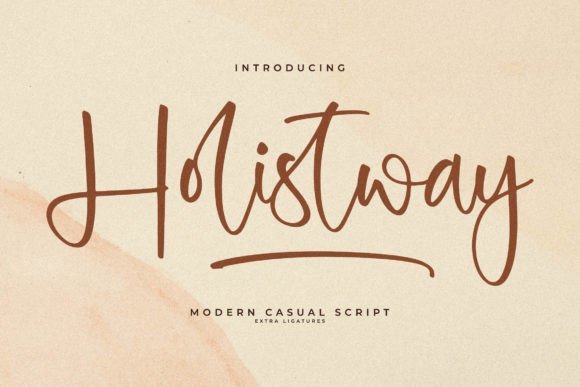
The Art of Beautiful Script: Introducing Holistway Font
Have you ever been in a creative zone, surrounded by blank paper and a flurry of ideas, only to be struck by the perfect font that brings your vision to life? This is exactly what happened to designers who discovered the Holistway Font – a modern casual script that’s perfect for any project that needs a touch of elegance.
Holistway Font is designed to cater to the diverse needs of designers, from logos and branding projects to homeware designs and product packaging. Its versatility and unique charm make it an invaluable asset for any creative professional looking to add a personal touch to their work.
With the Holistway Font, designers can breathe new life into their projects, from quotes and posters to shopping bags and book covers. Its beauty lies in its simplicity, making it a valuable addition to any design arsenal.
Holistway Font Key Features
- Unique Characteristics: The font features a unique blend of modern and traditional elements, with distinctive letterforms and a range of weights and styles, including light, regular, bold, and italic.
Honest Review: Holistway Font
As a designer, I’ve had the chance to work with Holistway Font, and I must say it’s a unique and interesting addition to my font collection. Here are my thoughts on what works well and what could be improved.
What Works Well: ✨
- Clean and Modern Design: Holistway Font has a sleek, modern aesthetic that makes it perfect for contemporary designs.
- Good Legibility: The font is highly legible, making it easy to read even at smaller font sizes.
- Wide Character Set: Holistway Font supports a wide range of languages and characters, making it a great choice for multi-language designs.
- Limited Expressiveness: While Holistway Font is great for modern designs, it may not be the best choice for more expressive or creative projects.
- Not Ideal for Small Text: While the font is legible, it may not be the best choice for small text sizes, as it can become difficult to read.
Overall, I think Holistway Font is a solid addition to any designer’s font collection. It’s perfect for modern designs, and its good legibility and wide character set make it a great choice for a wide range of projects. However, it may not be the best choice for more expressive or creative projects, or for small text sizes.
Tips for Getting the Most Out of Holistway Font
Here are some tips to help you get the most out of Holistway Font:
- Use Holistway Font for headings and titles to add a touch of elegance.
- Pair Holistway Font with other fonts to create a unique and interesting design.
Common Use Cases for Holistway Font
Holistway Font is suitable for a variety of use cases, including:
- Choose a crisp white or light-colored background to make the font stand out.
- Select a key phrase or your name in Holistway Font and place it prominently on the card.
- Add a subtle pattern or texture to give the card some visual interest.
- Pair Holistway Font with a sans-serif font, like Open Sans, for a clean and modern look.
- Use a simple icon, like a circle or a square, to add a touch of personality to the card.
- Choose a soothing color palette that evokes feelings of calmness and relaxation.